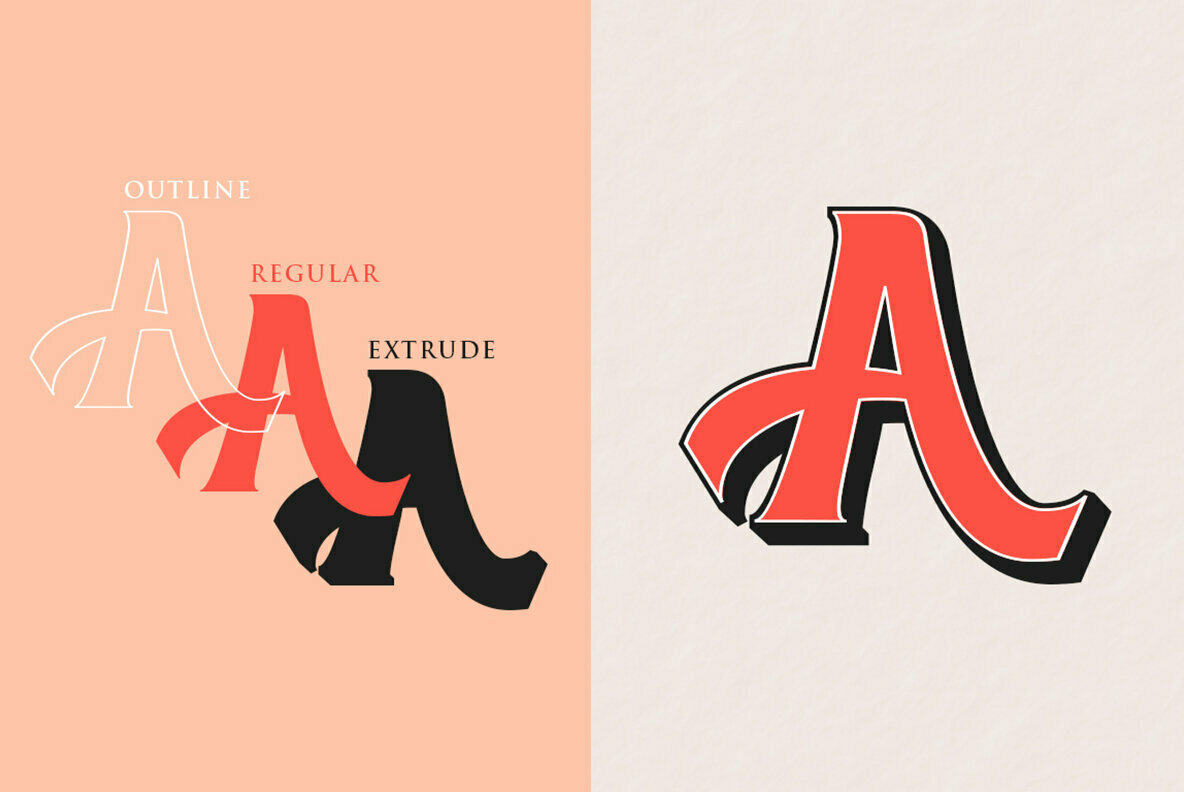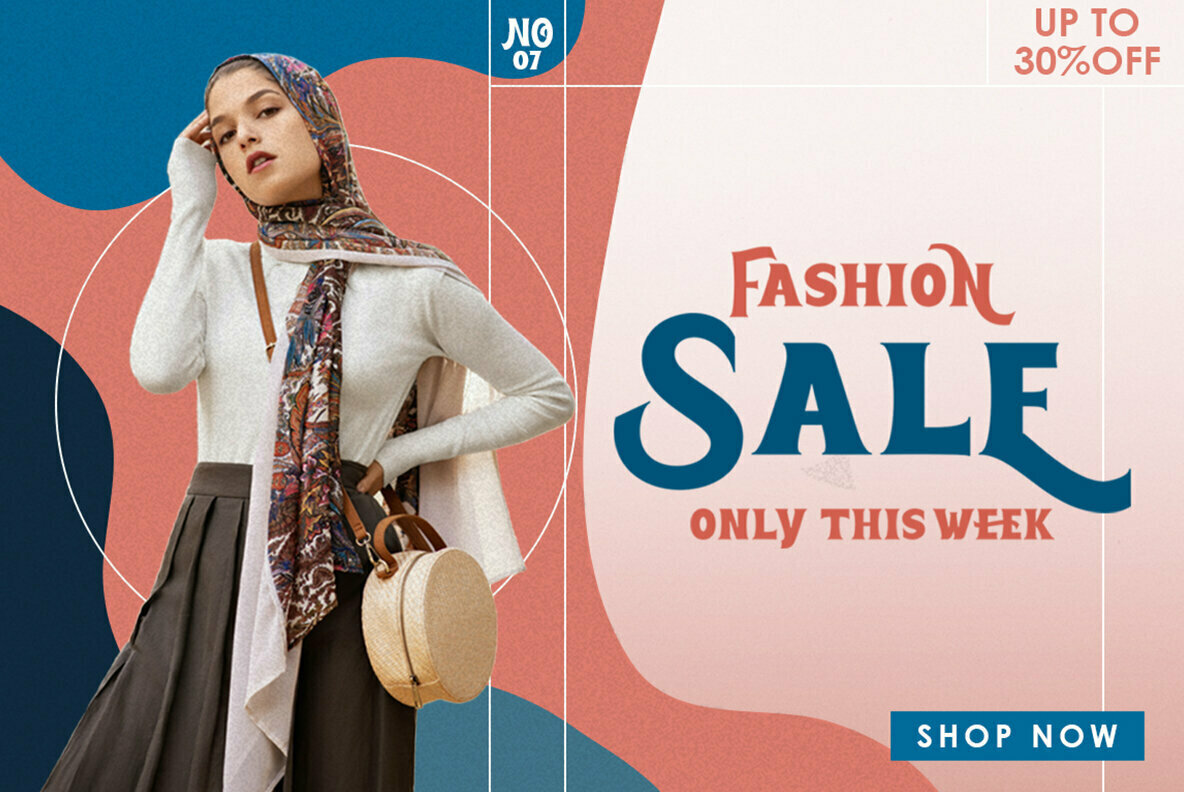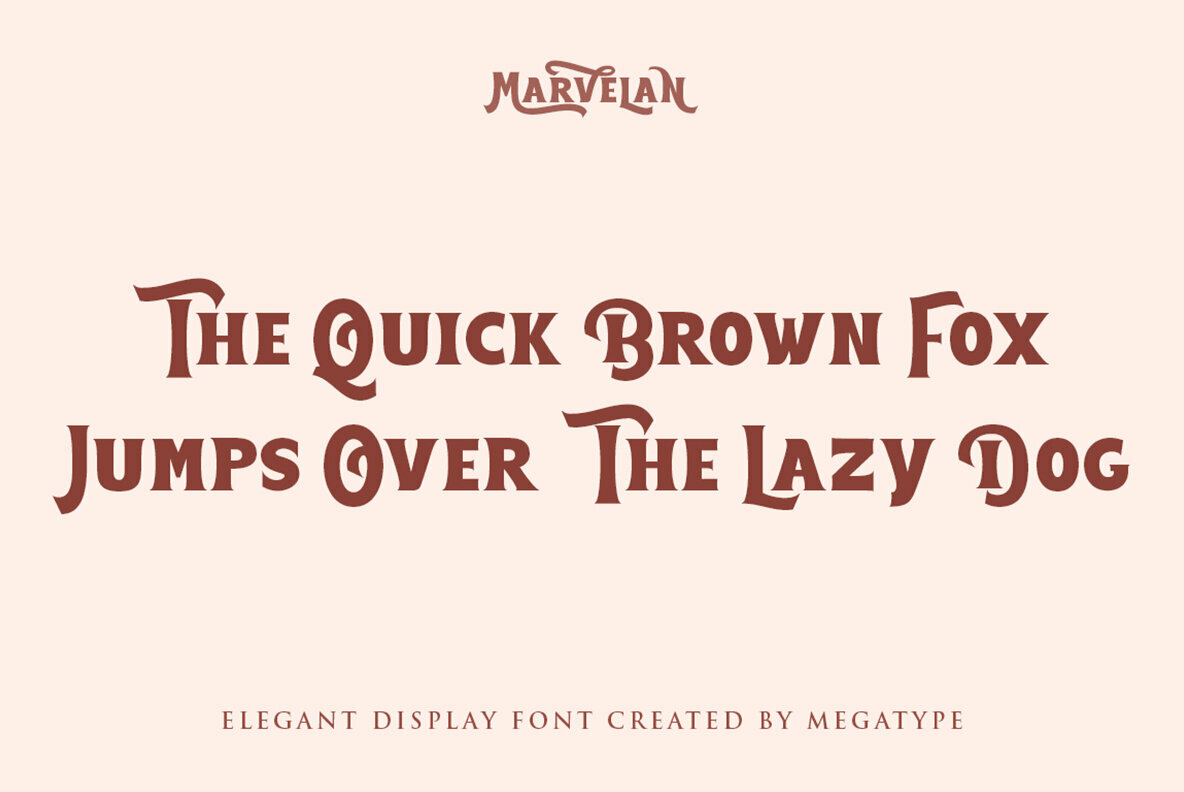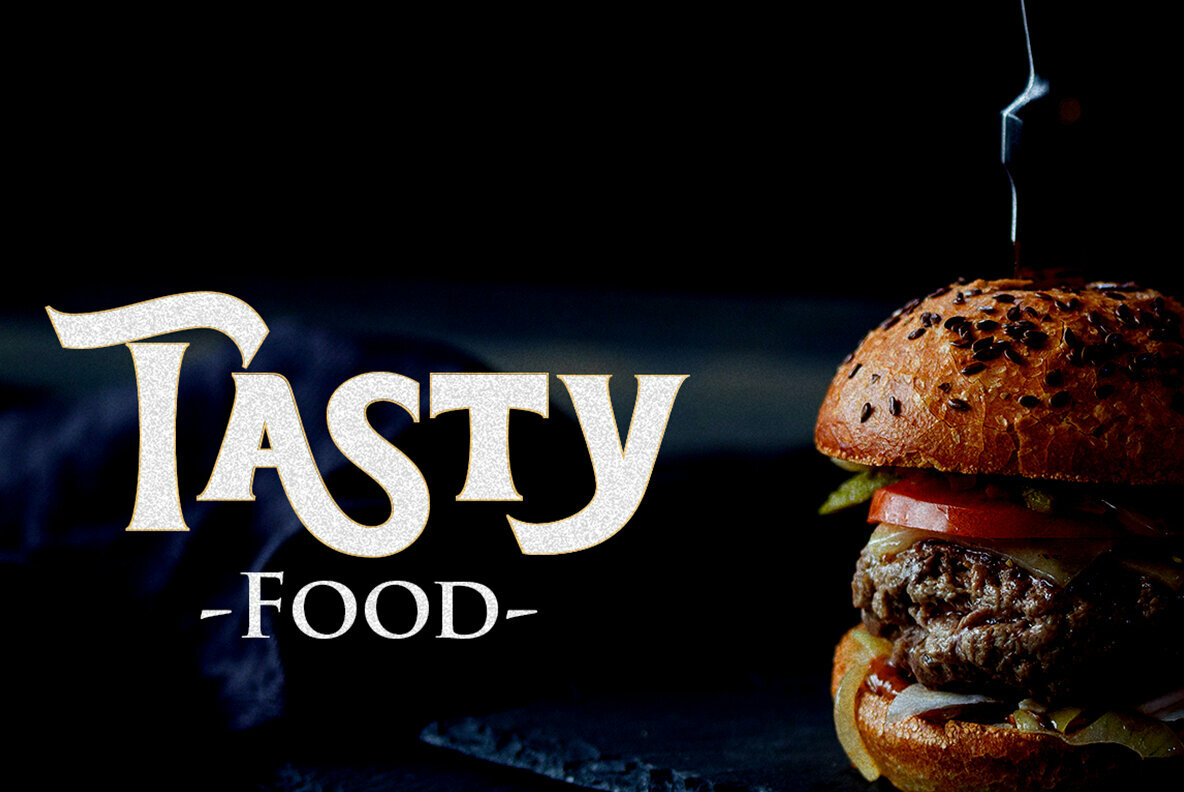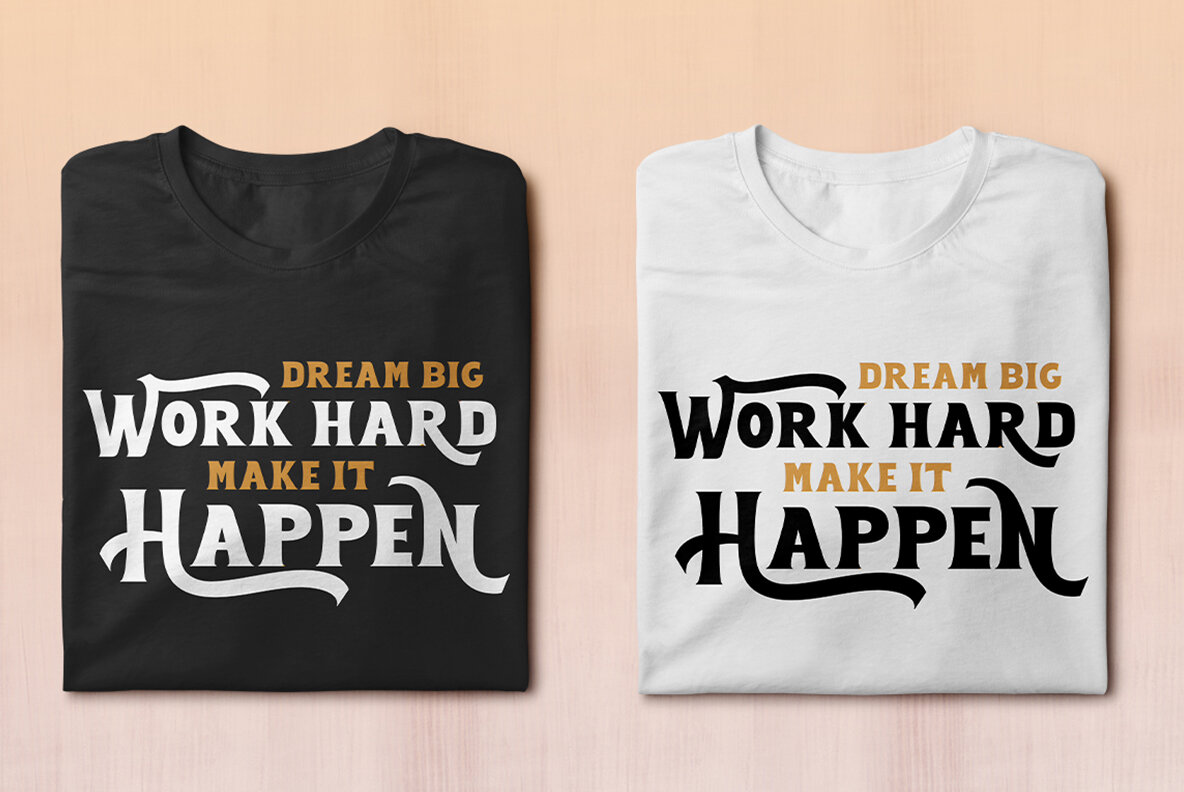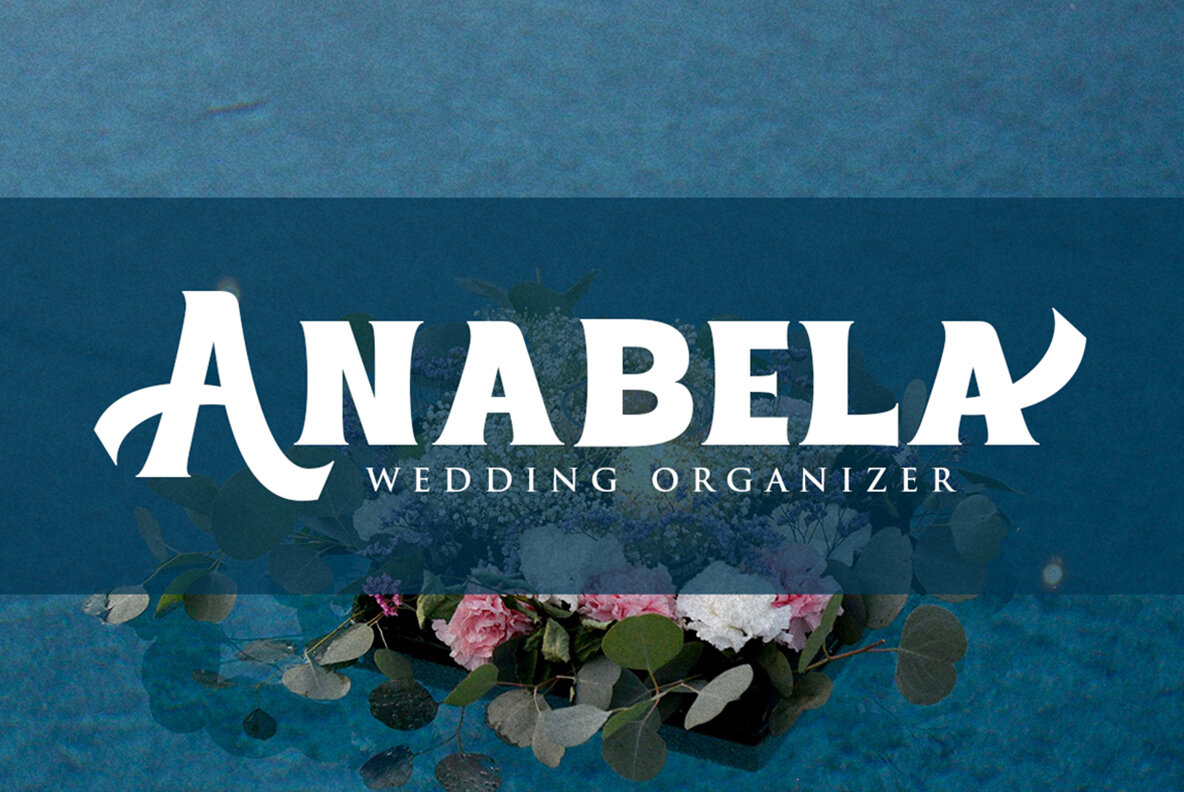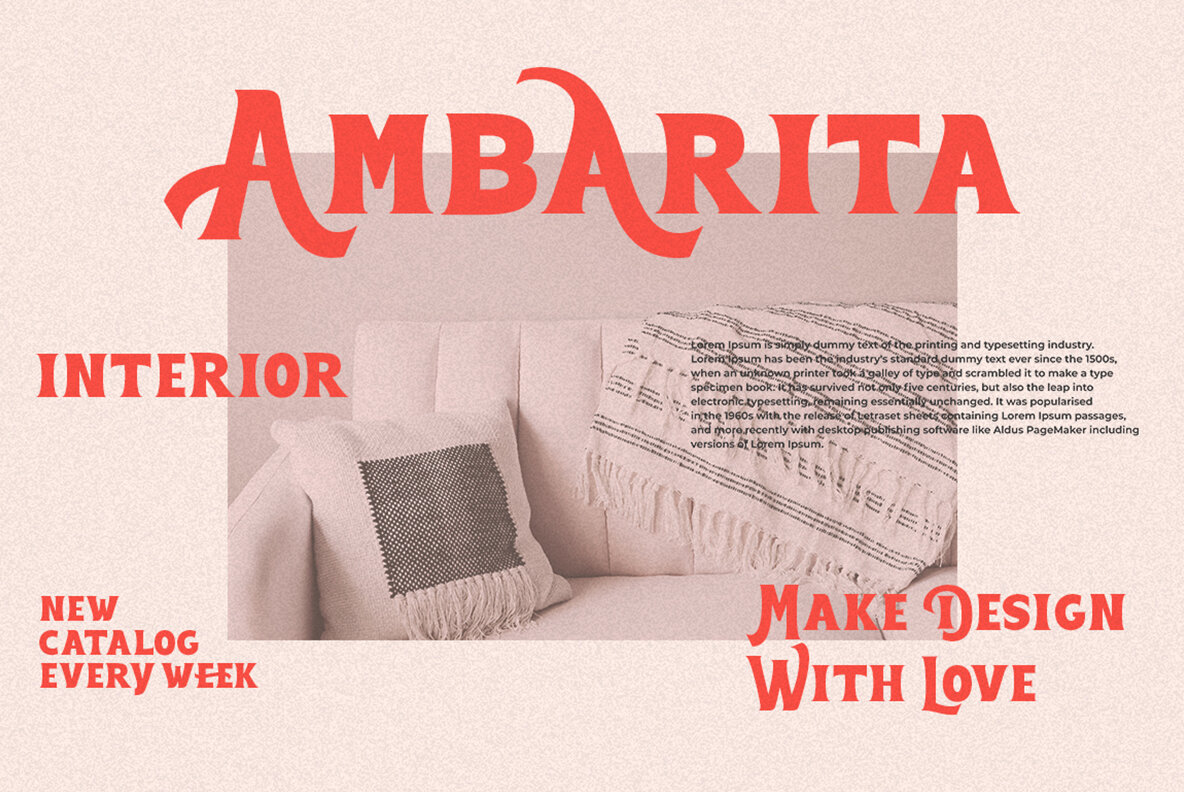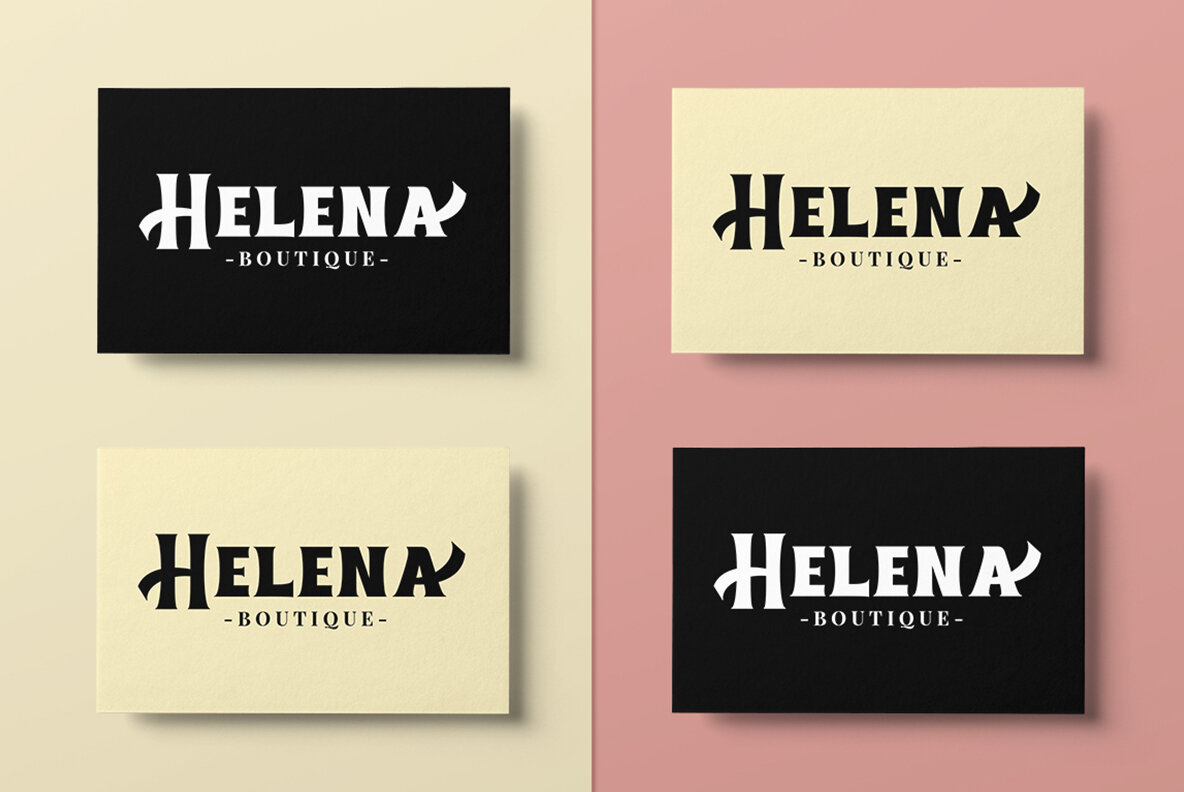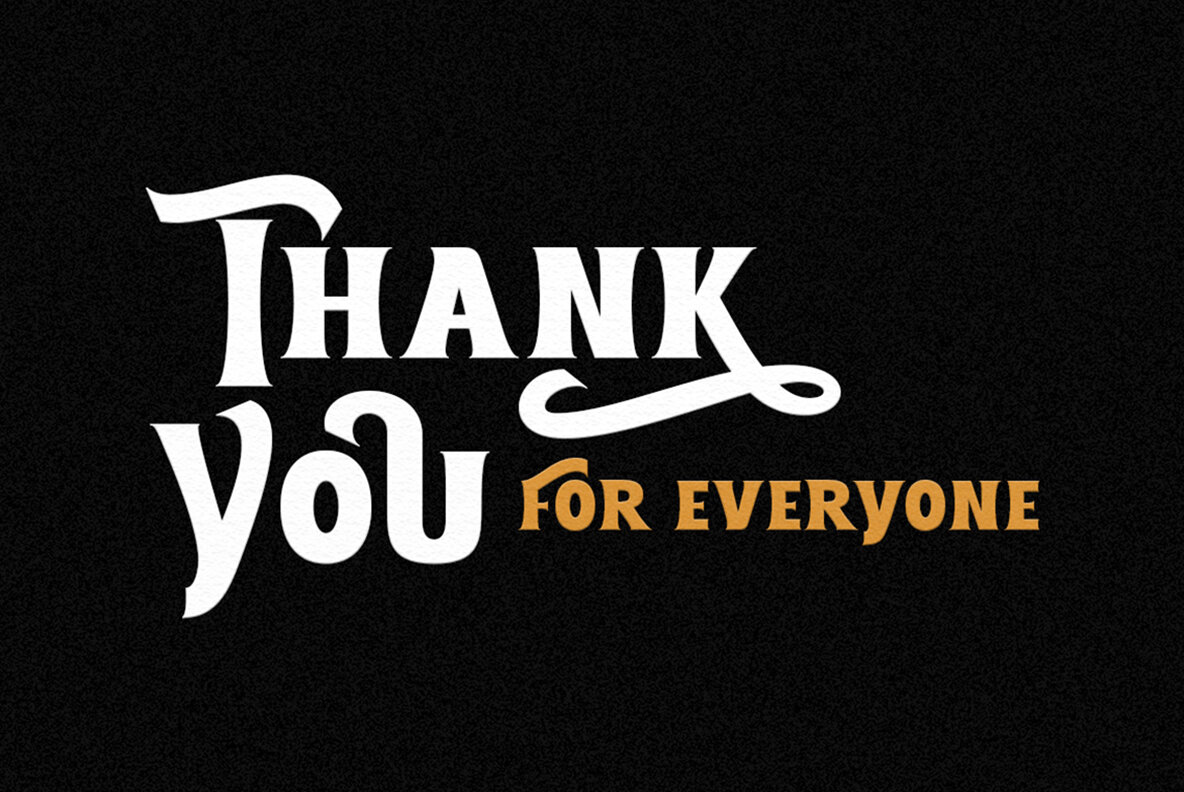
Marvelan Font
Marvelan by Megatype offers a cheerful yet elegant touch, making it a strong choice for both modern and vintage designs. Its OpenType feature provides a wealth of alternative characters, allowing creative letter pair combinations to perfectly match your vision. Marvelan comes in three distinct styles—Regular, Outline, and Extrude—each crafted uniquely while retaining consistent character integrity. Ideal for a variety of applications, Marvelan excels in titles, posters, logos, and more. Whether for book covers or business cards, its adaptability ensures it meets diverse design needs with aplomb.Marvelan: Versatile Display Font With Style